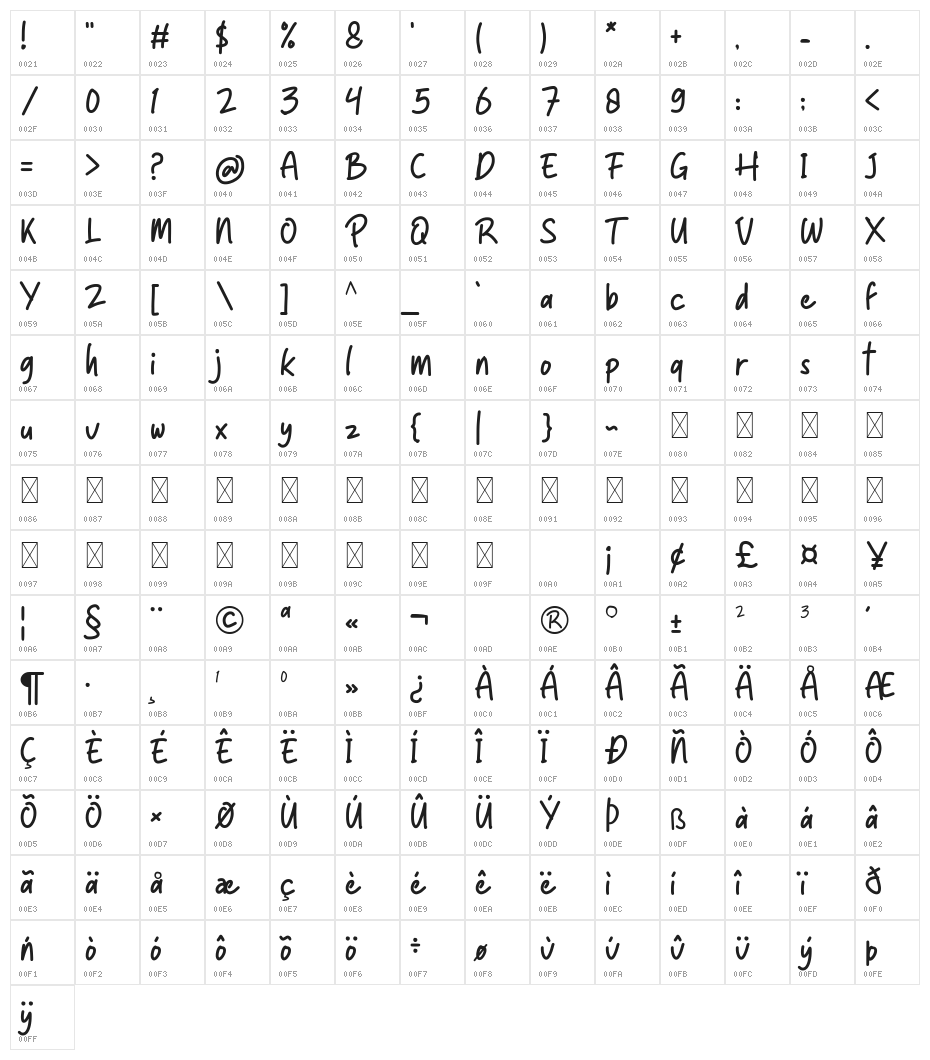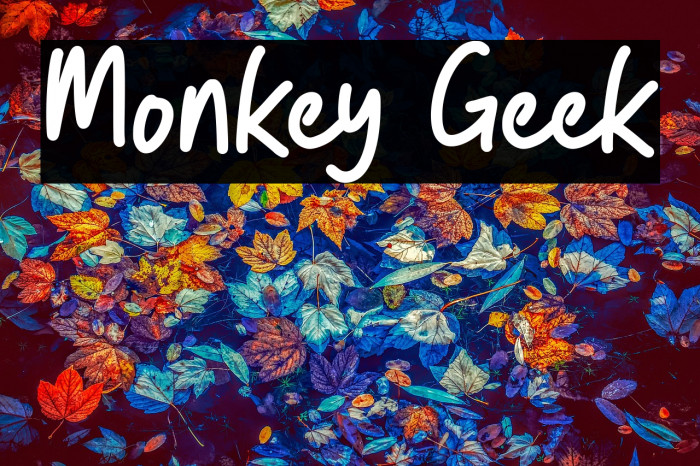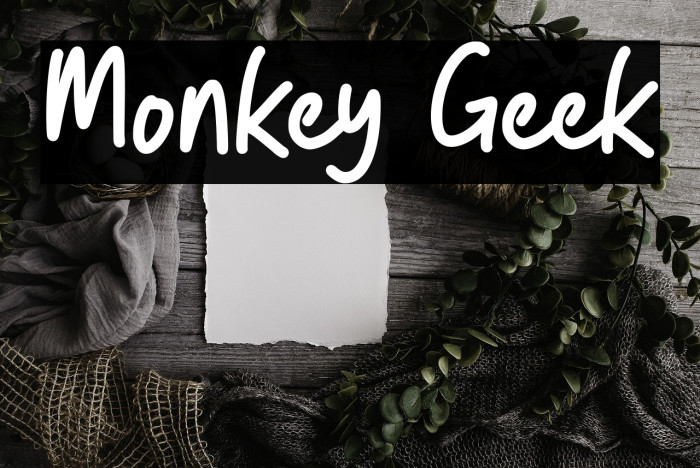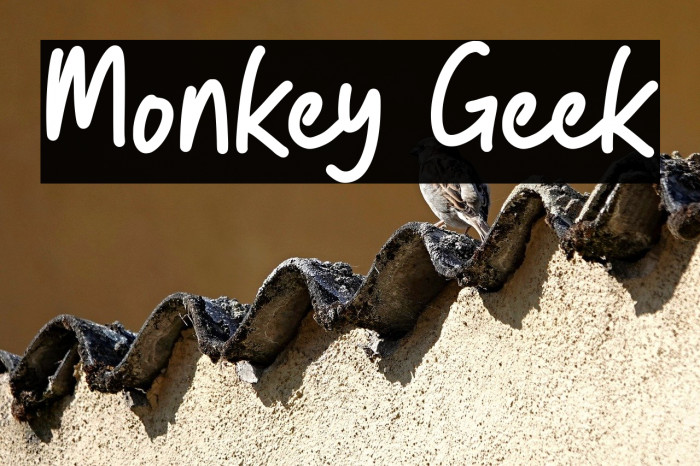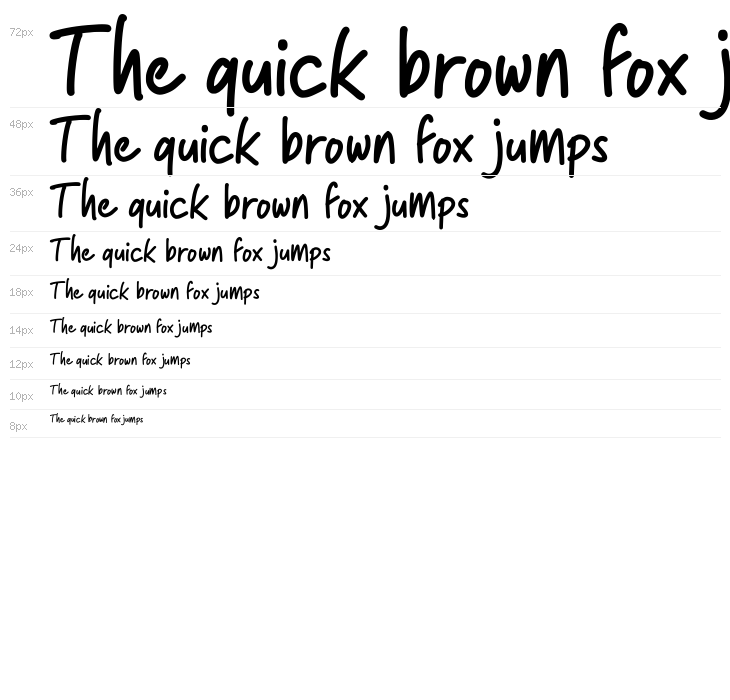
Monkey Geek Font
Monkey Geek Description
This font features a playful and casual handwritten style, characterized by its smooth, rounded strokes and slightly irregular letterforms. The uppercase and lowercase letters maintain a consistent flow, giving it a friendly and approachable appearance. The numbers and special characters are designed to complement the letters, maintaining the same whimsical style. The overall look is informal, making it suitable for projects that require a personal touch or a sense of fun.
| Overall Style | Casual, Playful |
| Use Case | Logos, Headlines, Informal Text |
| Proposed Projects | Ideal for greeting cards, children's books, casual branding, and social media graphics. |